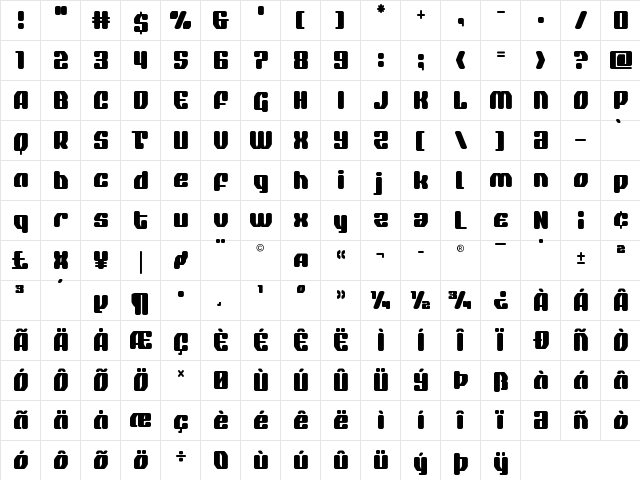
Quasar Pacer Regular
Design Context for Quasar Pacer Typeface
Quasar Pacer is a composed and adaptable typeface that performs quietly and consistently across a wide range of design contexts.